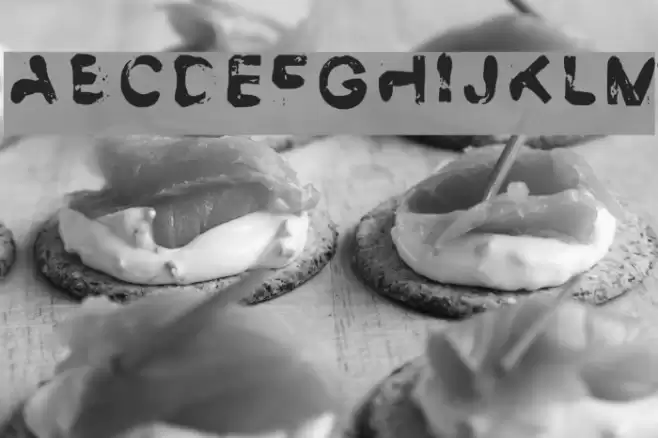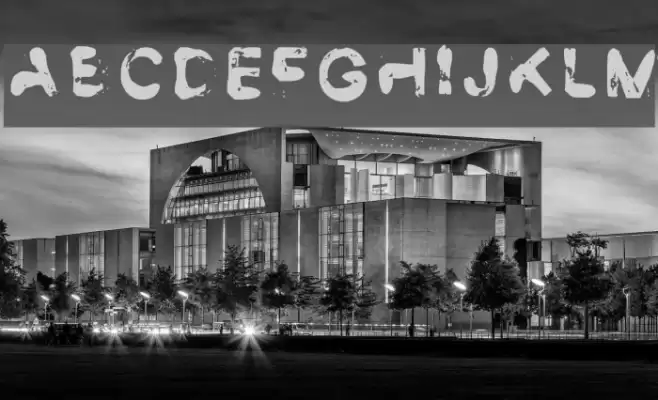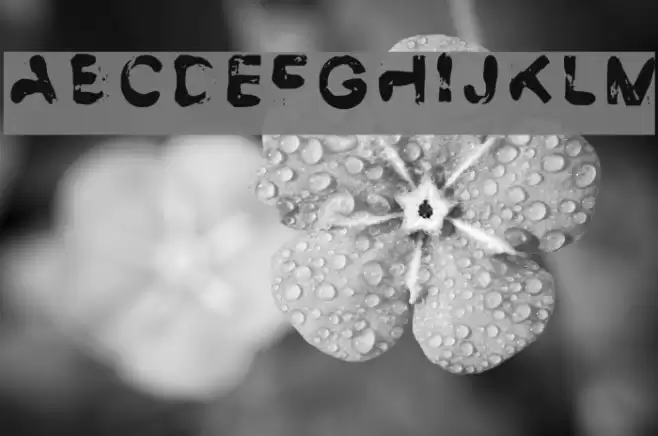
Smudge Demo Regular Font
Smudge Demo Regular Description
This font features a bold and distressed style, with each character appearing as if it has been smudged or worn. The uppercase letters are prominently bold, with irregular edges that give a grunge or urban feel. The texture within each letter adds depth and character, making it ideal for designs that require a rugged or vintage aesthetic. The font's unique appearance makes it stand out, perfect for creative projects that aim to capture attention with a bold statement.
A bold, distressed font with a grunge aesthetic from Uncategorized fonts.
- Proposed Projects: Ideal for posters, album covers, streetwear branding, and any project needing a bold, edgy look.
- Overall Style: Grunge, Urban, Vintage